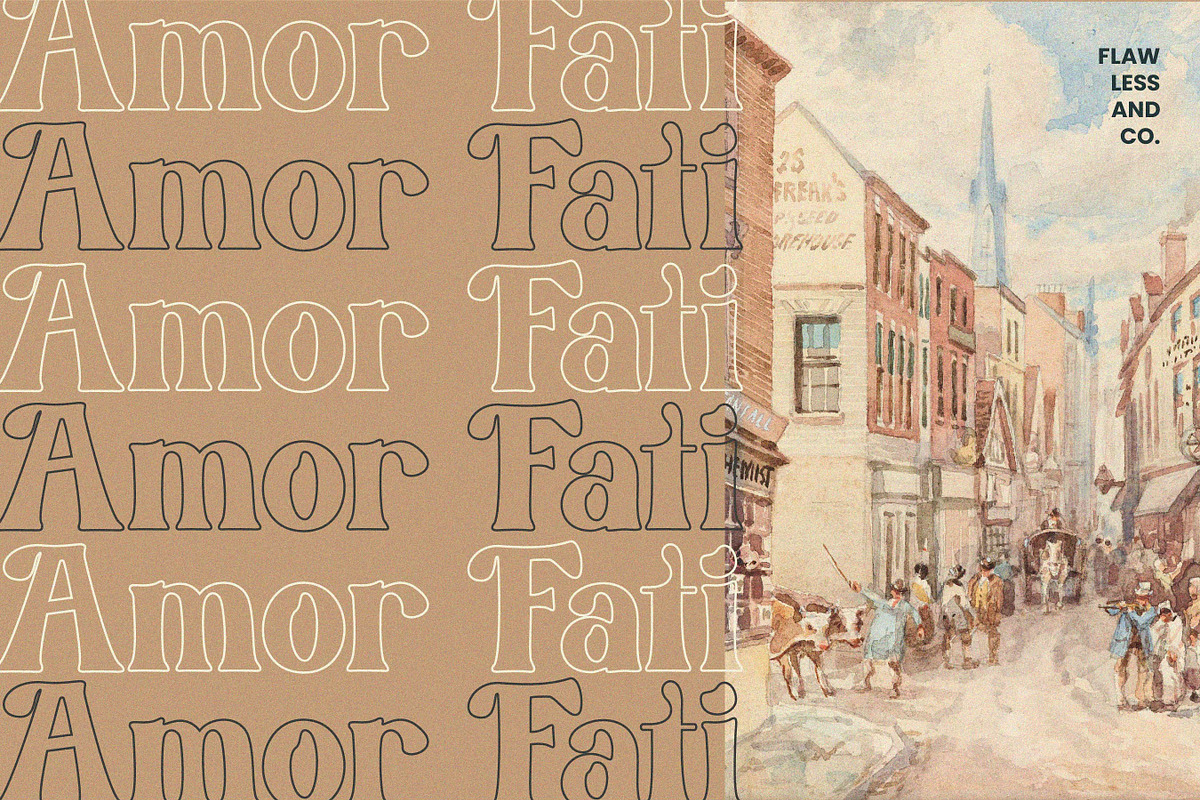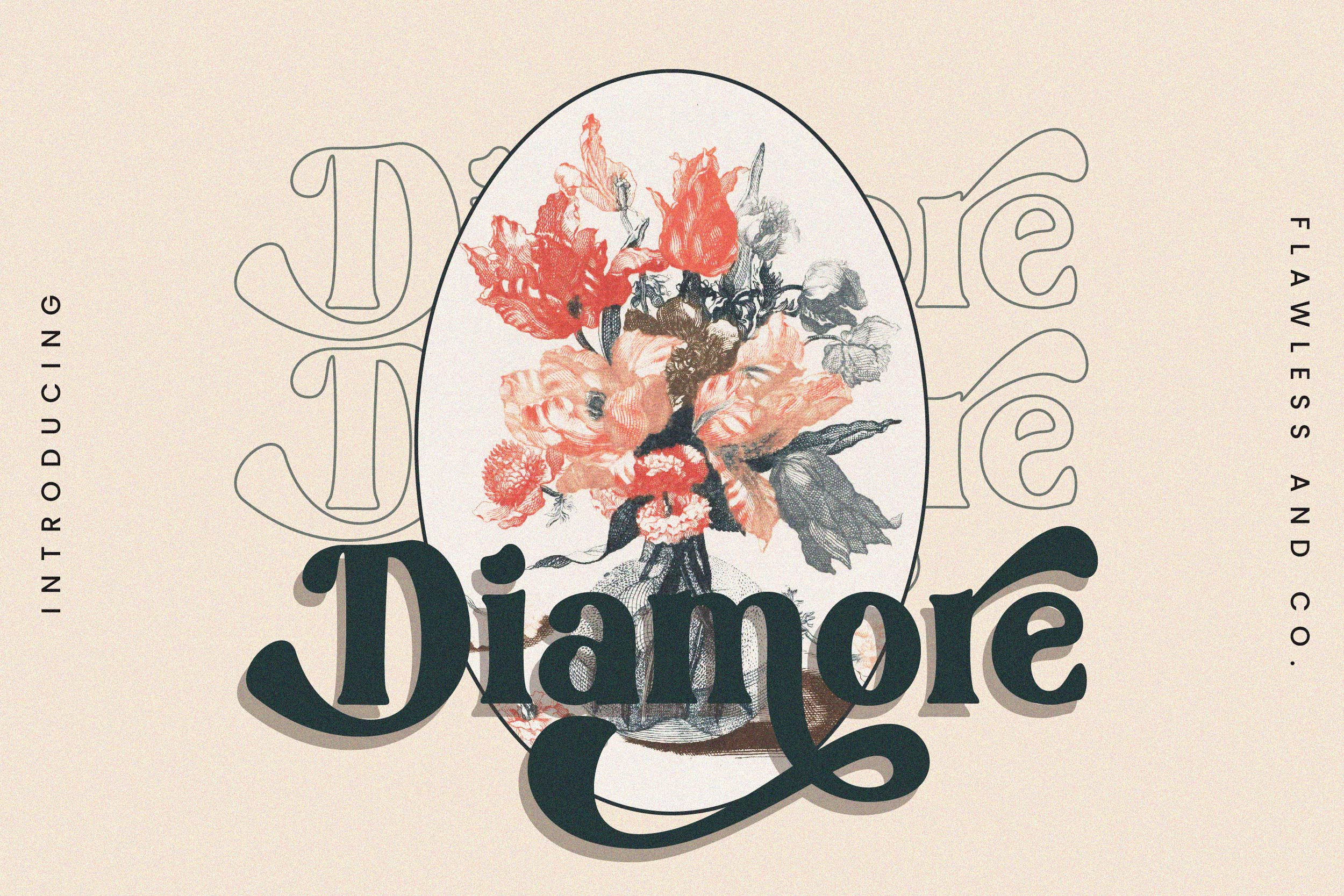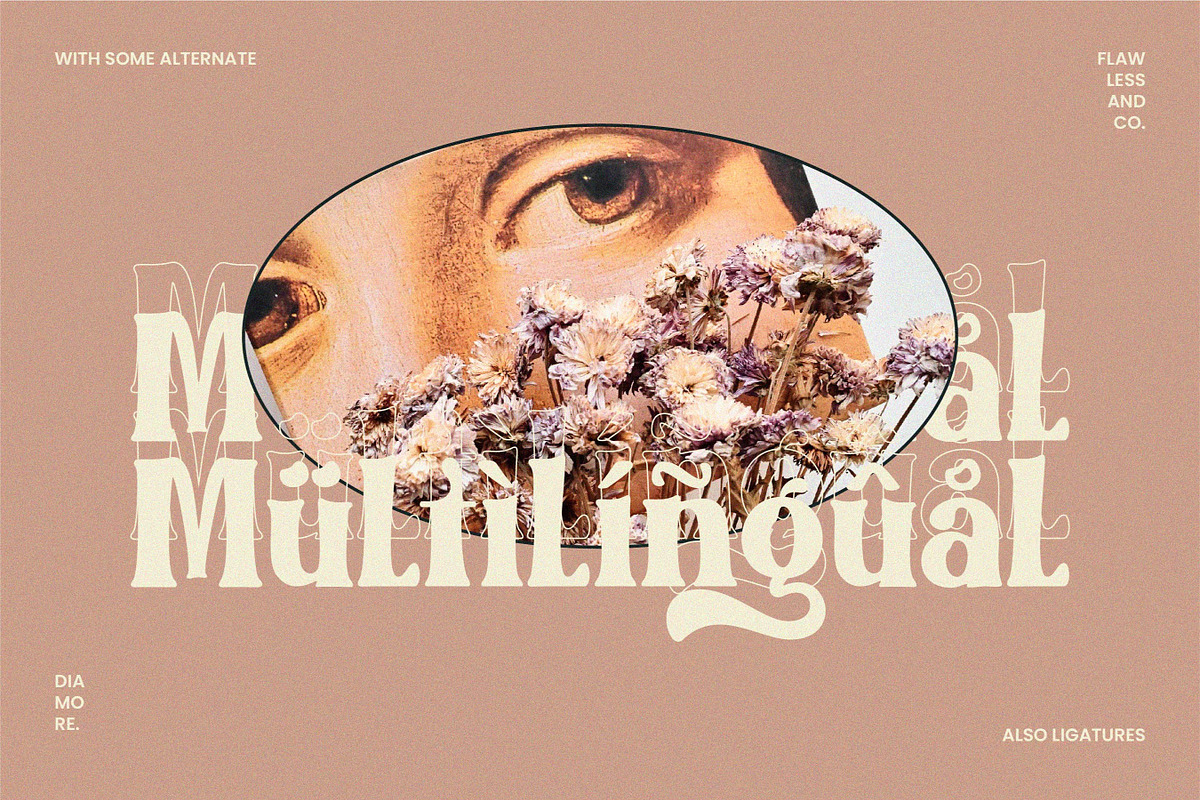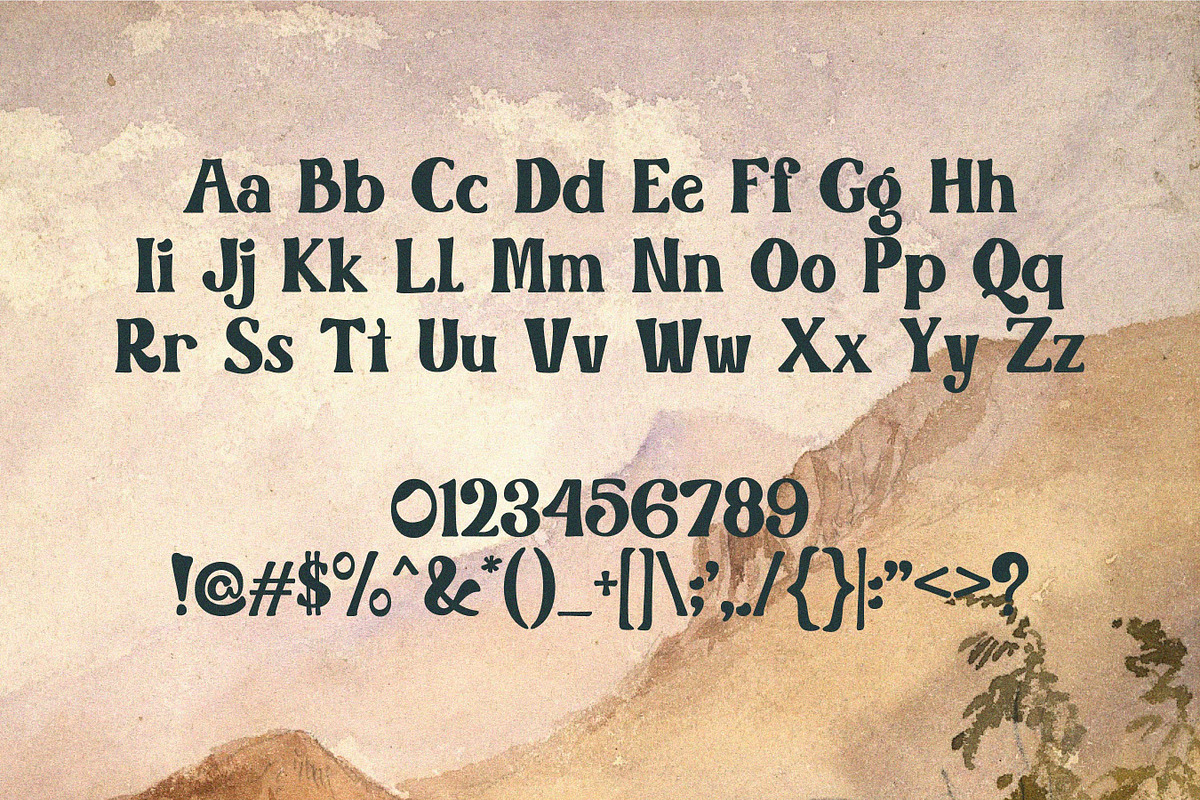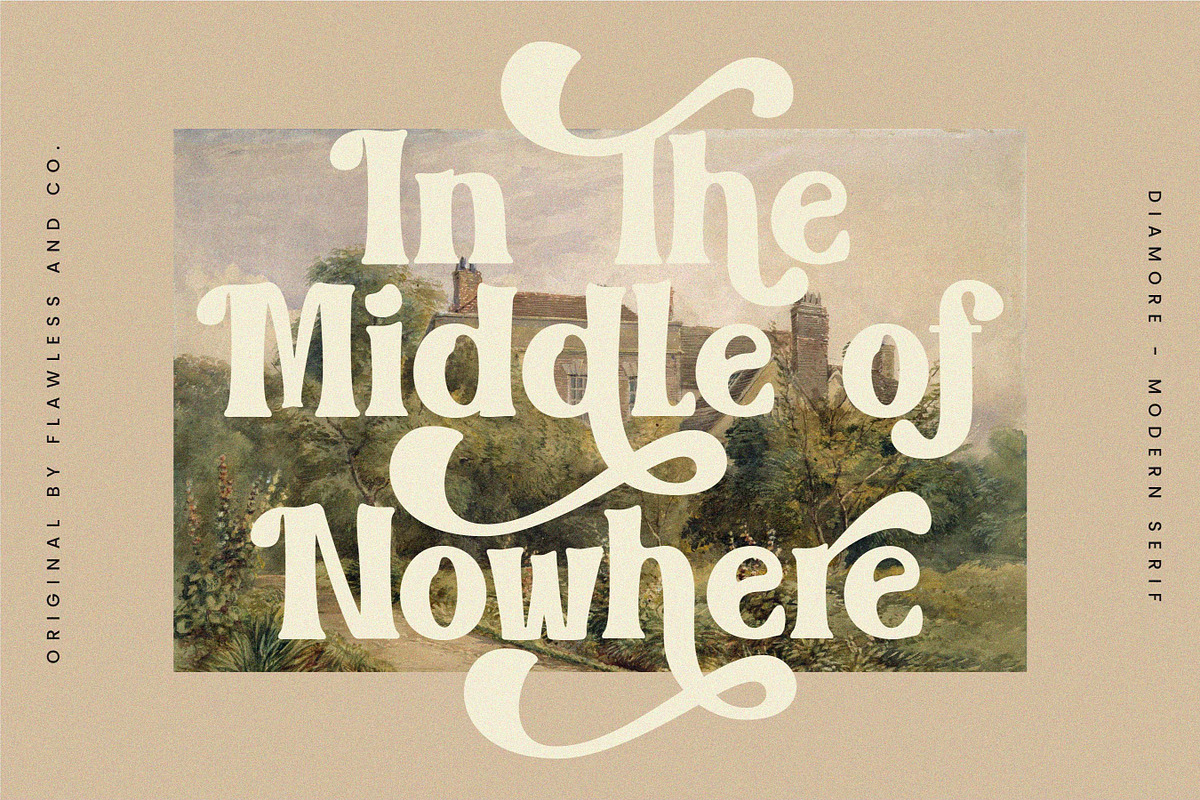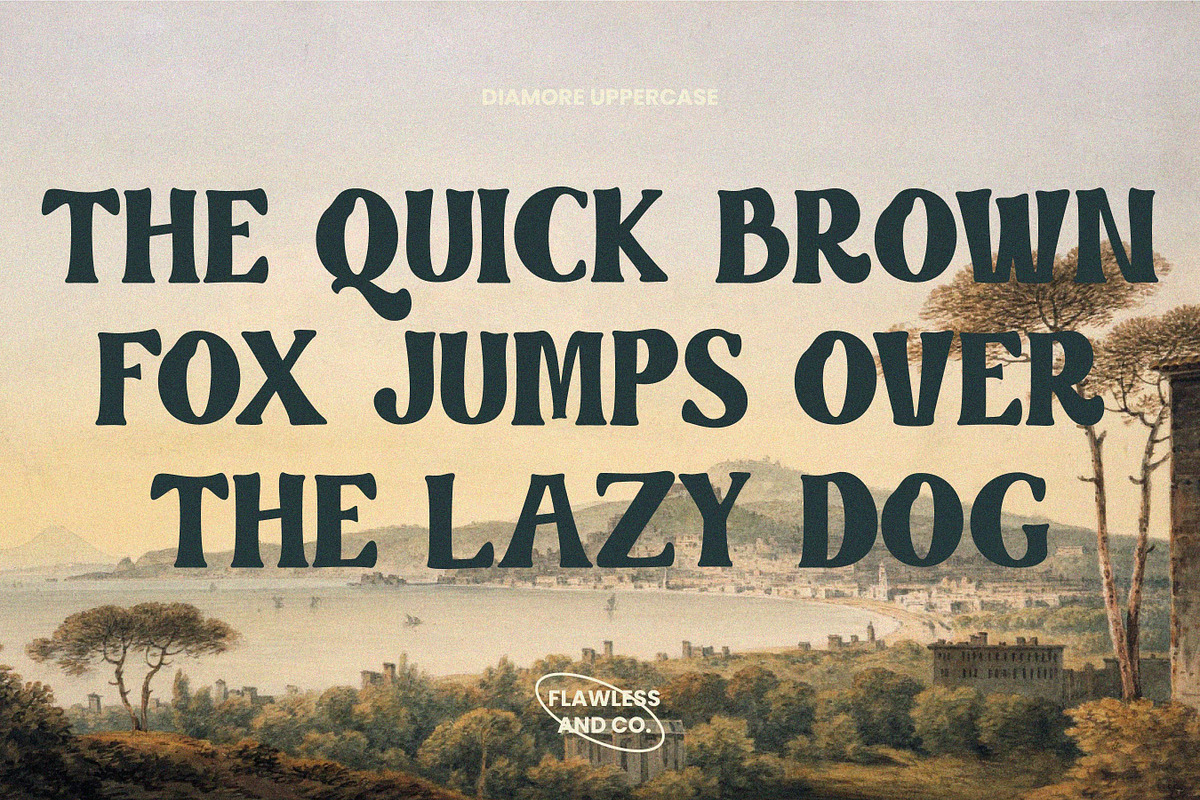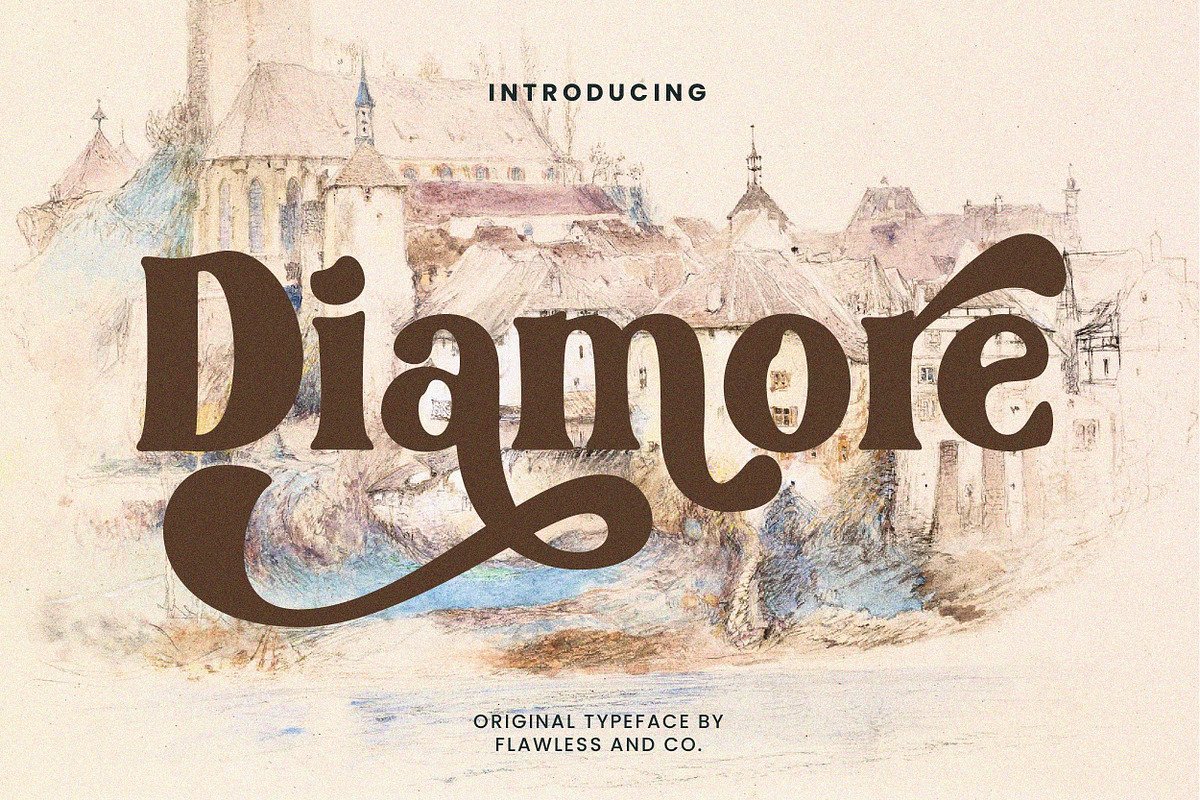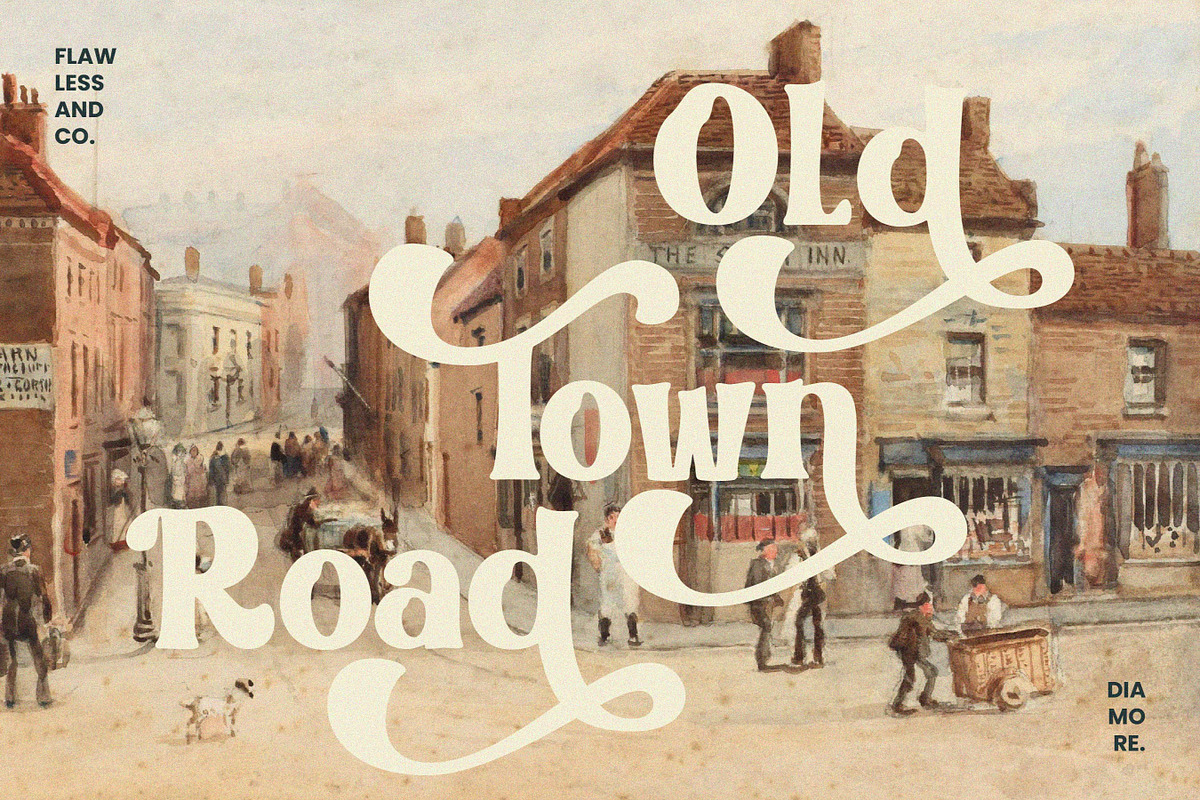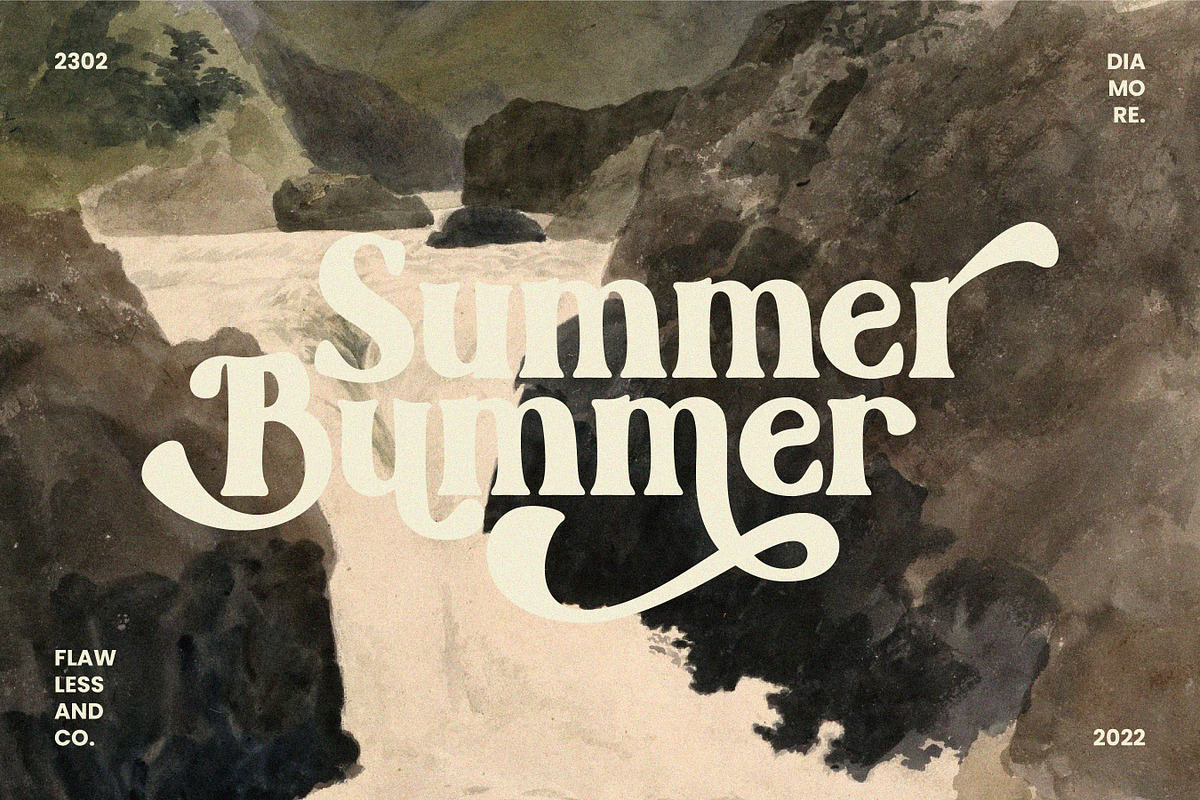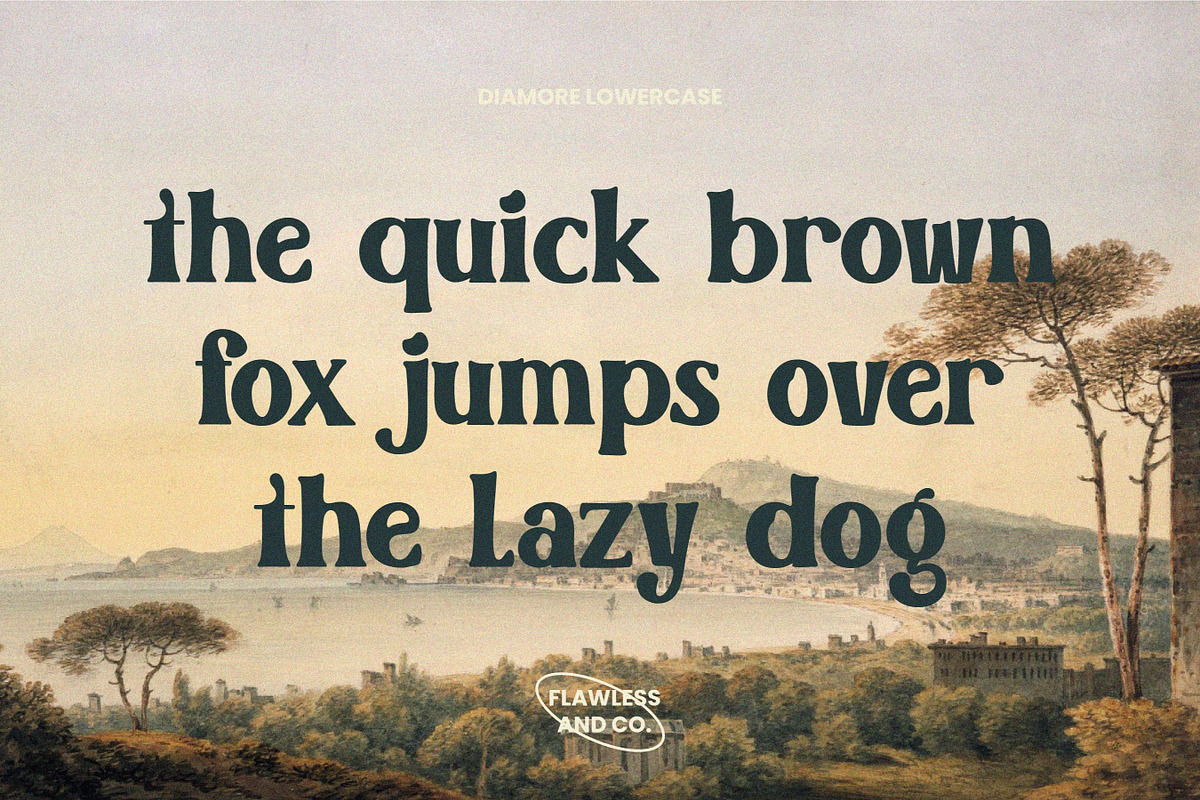
Diamore - Modern Retro Font
introducing our new "Boscho" Modern Retro with Fun and Elegant Style is perfect for branding, logos, invitation, master heads, and more.
Multilingual Uppercase alphabet A-Z Lowercase alphabet a-z Alternate Character Numbers 0-9 Some punctuation